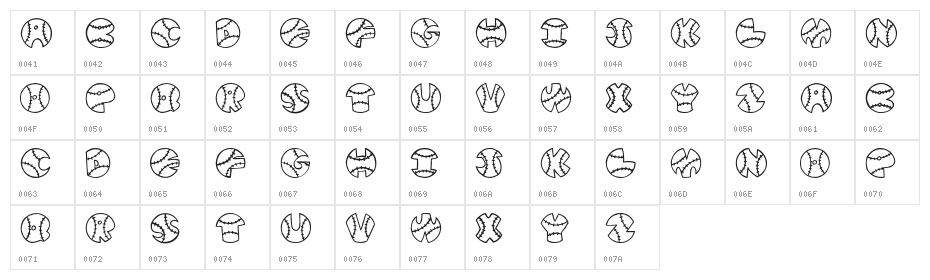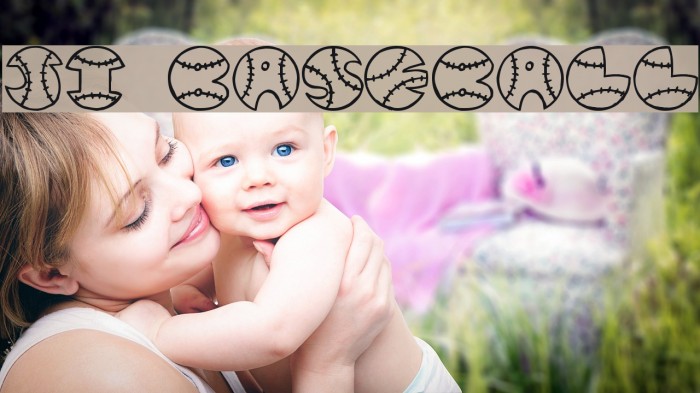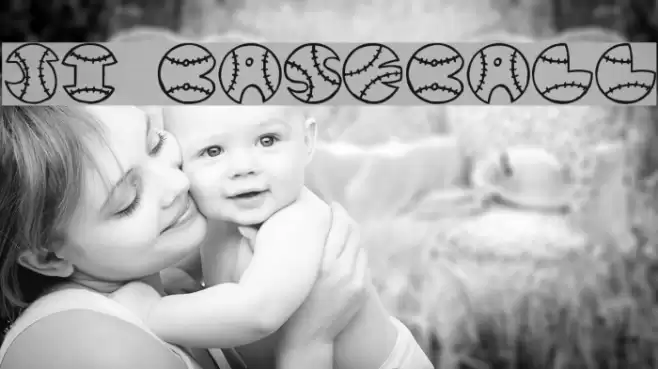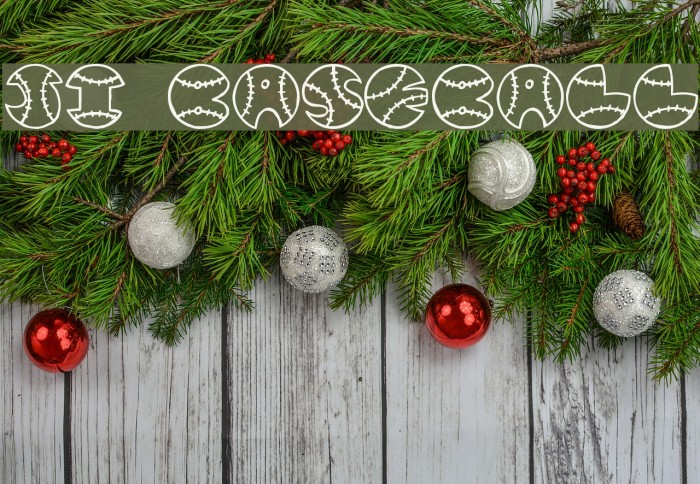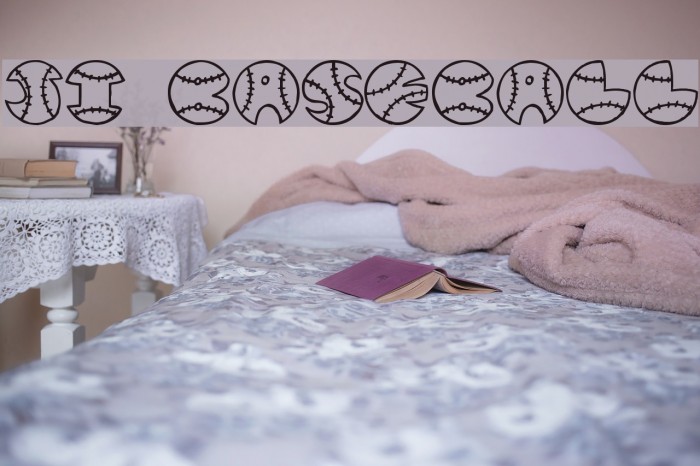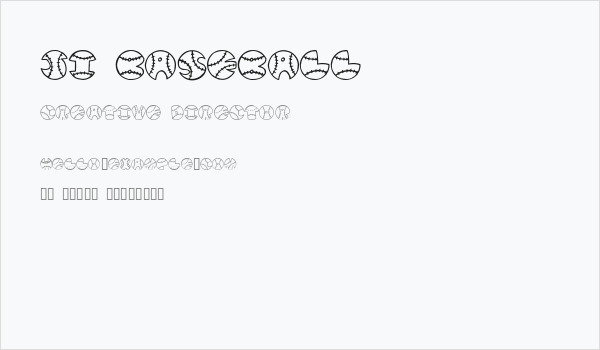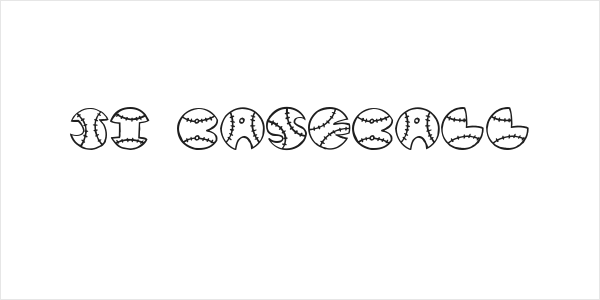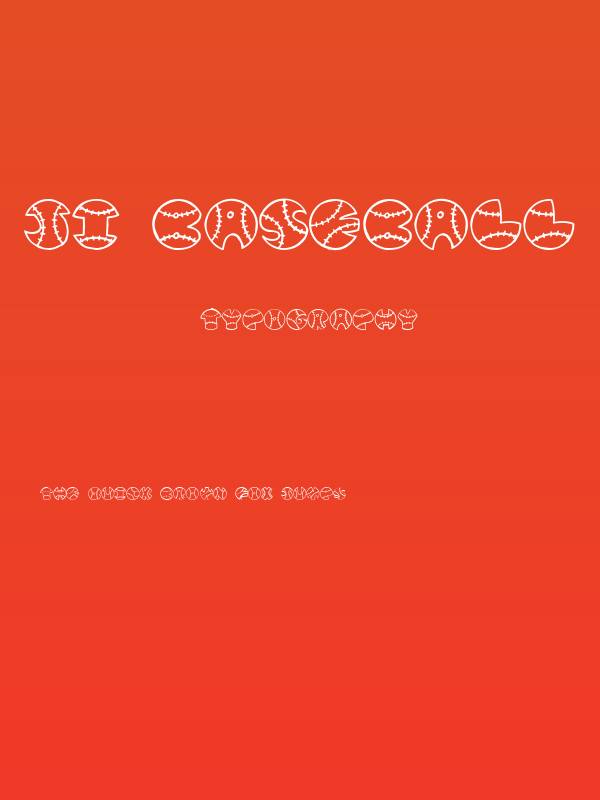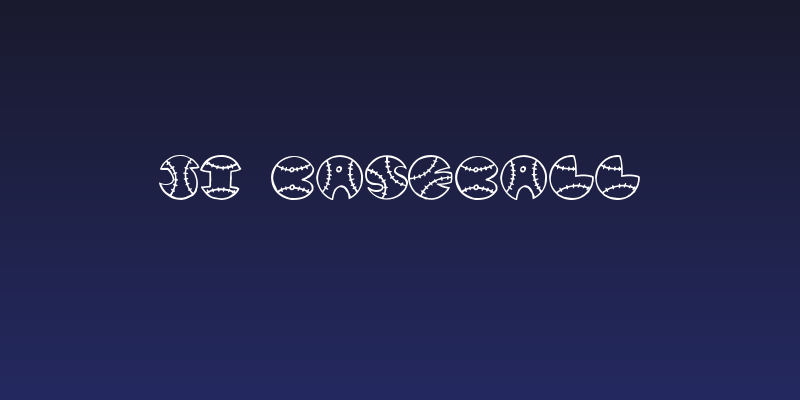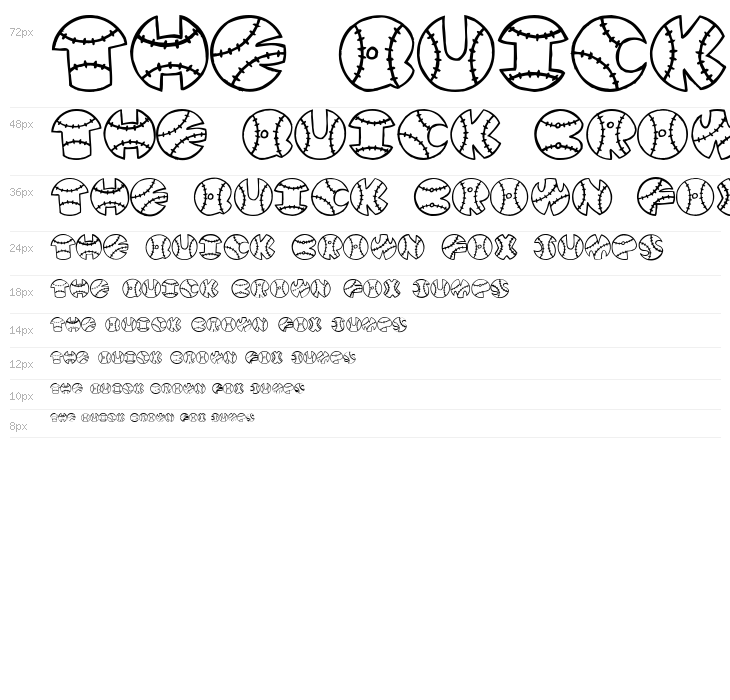
JI Baseball Font
JI Baseball Description
This font features a unique and playful design, with each character enclosed within a baseball shape. The stitching detail on the baseballs adds a sporty and dynamic feel, making it ideal for projects related to sports, particularly baseball. The uppercase and lowercase letters maintain a consistent style, enhancing the cohesive look of the font. The numbers and special characters are represented by bold, rectangular shapes, providing a striking contrast to the rounded letters. This font is perfect for creating eye-catching headlines, sports team logos, or themed event materials.
| Overall Style | Playful, Sporty |
| Use Case | Headlines, Logos, Themed Events |
| Proposed Projects | Sports team logos, baseball event posters, themed merchandise, playful headlines. |